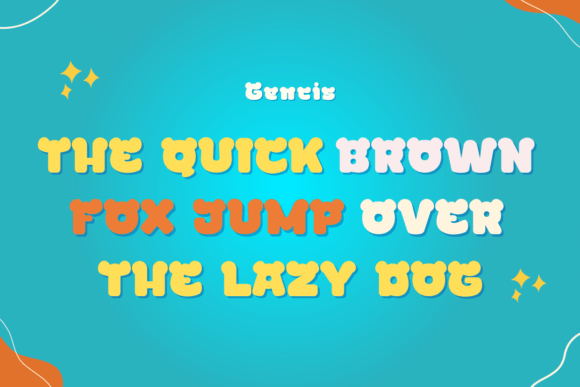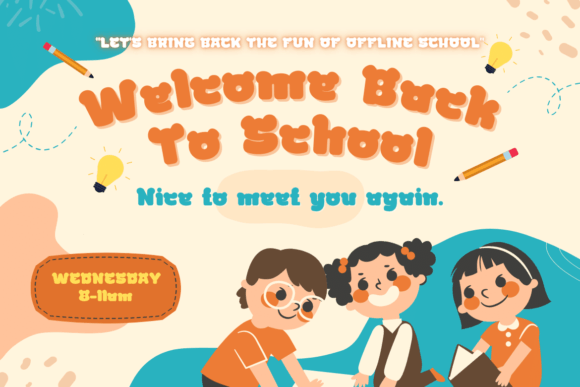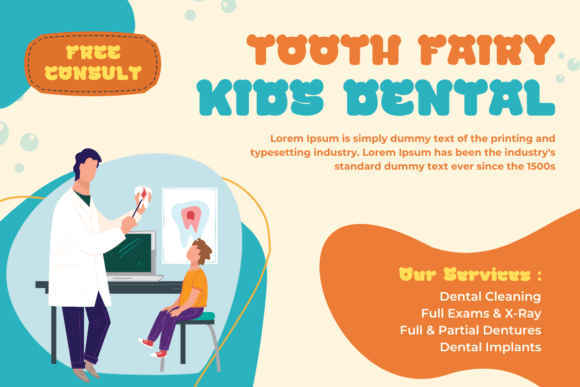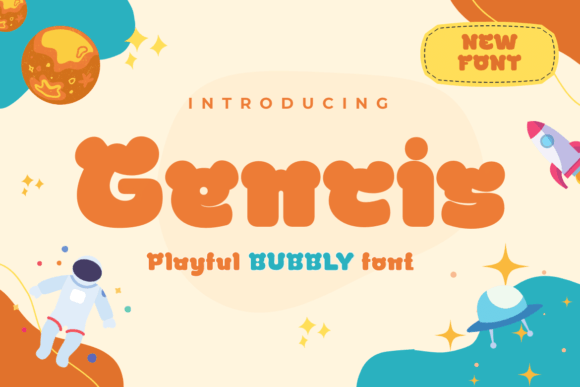
Introduction to Gencis Font
You can use this font that has a funny, cute, attractive, and playful shape for various things in your special project.
It can be used as the title of your news article, or it can be used in your search button Or you can even use it as a subtitle in various visual media to promote your company.
Gencis Font offers exceptional quality and versatility, making it a valuable addition to your design toolkit. Whether you’re creating for personal projects or commercial use, Gencis Font delivers professional results.